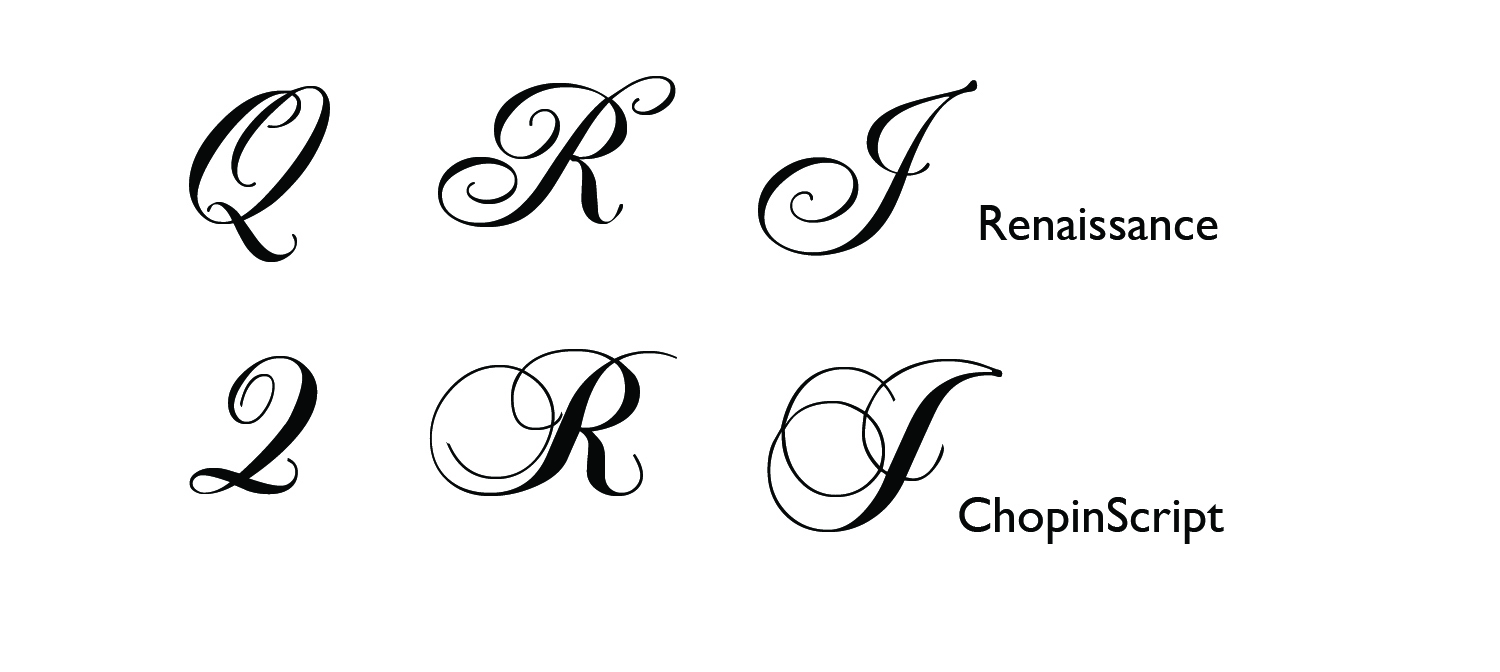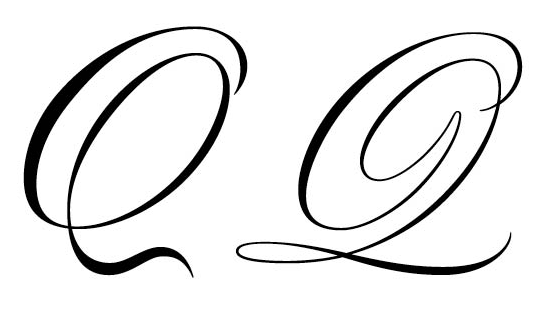
im not a font/typeset expert...meaning i dont know anything about either 😛. im trying to find a nice cursive upper case Q, hopefully there is an expert or someone with good taste who knows of a font that has a nice elegant cursive Q. thanks for any help!
i want to use it for a tattoo design that im working on (not actually tattooing it on myself). i want to find a nice font as a base and then i plan on modifying it a bit. a solid base is the first step though.
i like the cursive used with the L and J on Lebron James' tricep tattoos. i dont know how to explain why i think it came out so beautifully...maybe the bold/thin relationships...i cant explain it but a Q similar to that is what im looking for
These are two scripts I like... you should check out veer.com they have a lot of nice script typefaces too, Alejandro Paul is really great.
thanks for all the samples mates. ive been playing around with pretty much all of them and also got sidetracked checking out Alejandro Paul's awesome work. im doing a lot of sketching on paper now but ill share my final work if i get the chance.
Arno pro 🙂
I also have a thing for Arno pro. Light Display is my variant of choice... depending on application of course.
But in this case, I agree with Edwardian Script. Although it does look a little like a 2.